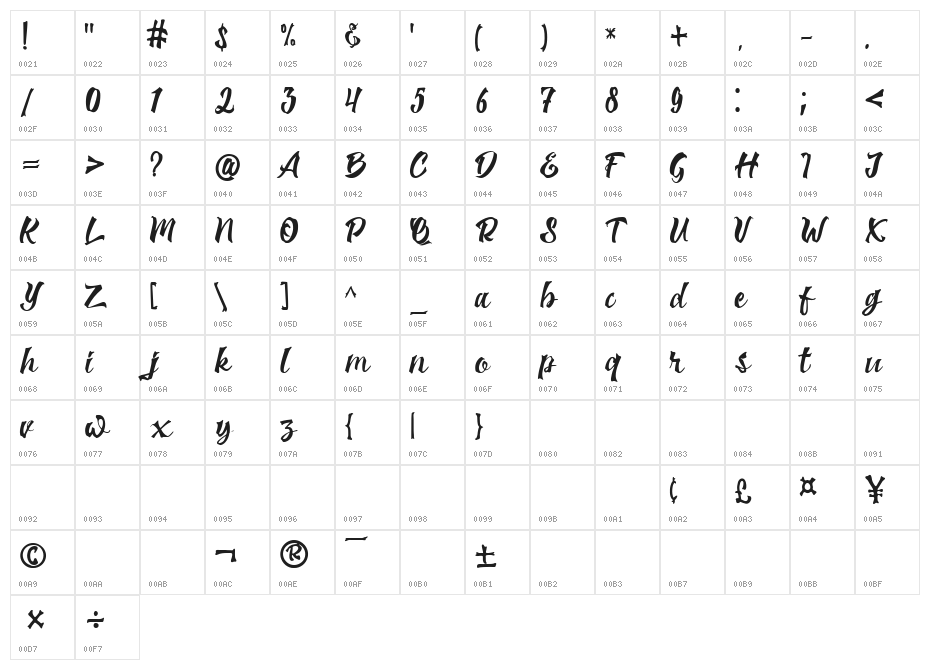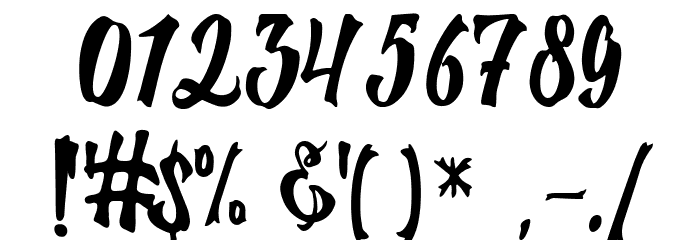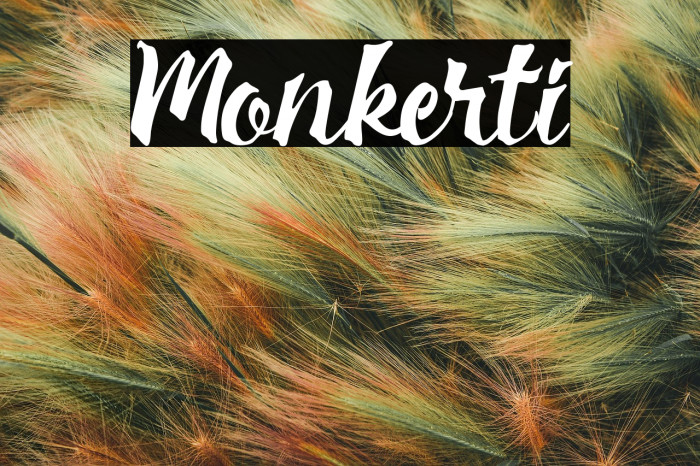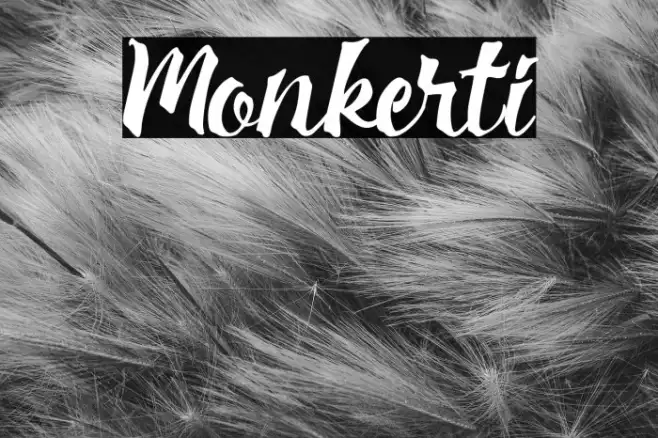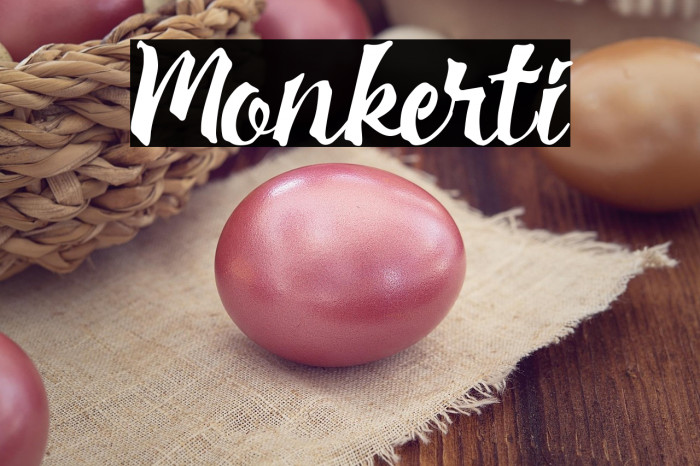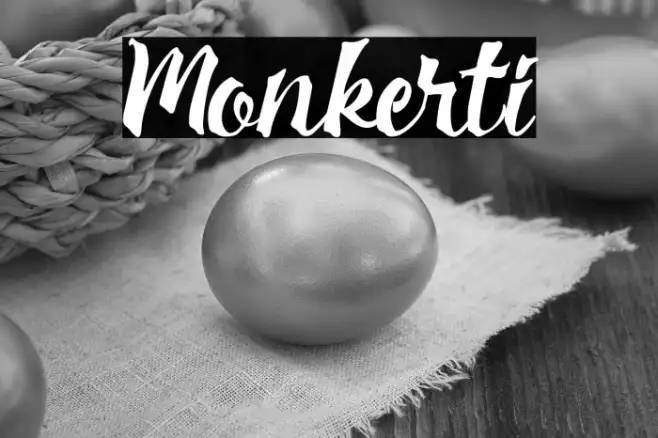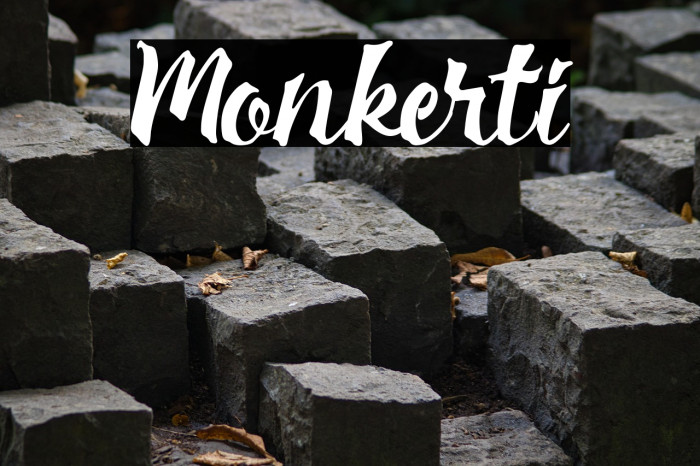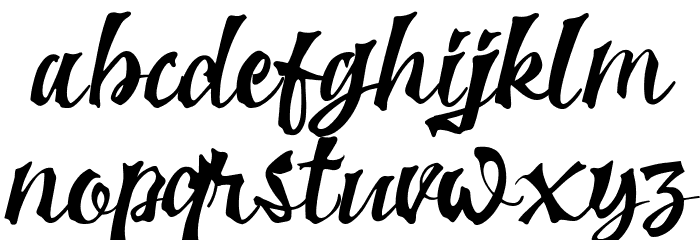
Monkerti Font
Monkerti Description
This font features a bold, expressive style with a handwritten appearance. The strokes are thick and dynamic, giving it a lively and energetic feel. The uppercase letters are slightly larger and more pronounced, while the lowercase letters maintain a consistent flow. The numbers and special characters are crafted with the same bold strokes, ensuring uniformity across all characters. The font's playful curves and angles make it stand out, adding a touch of personality to any design. It's ideal for projects that require a personal, artistic touch.